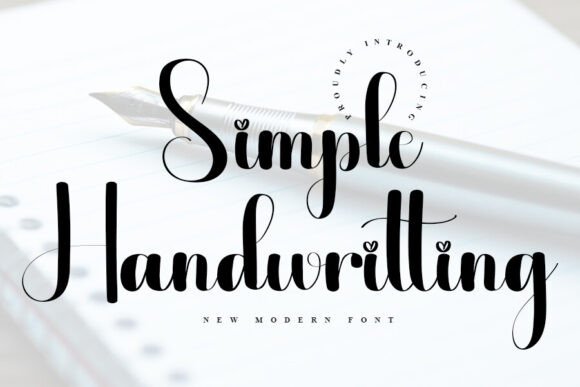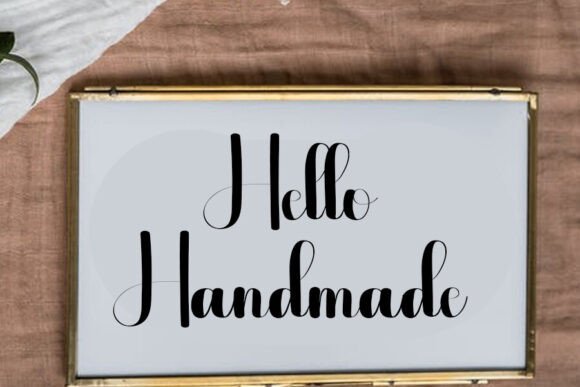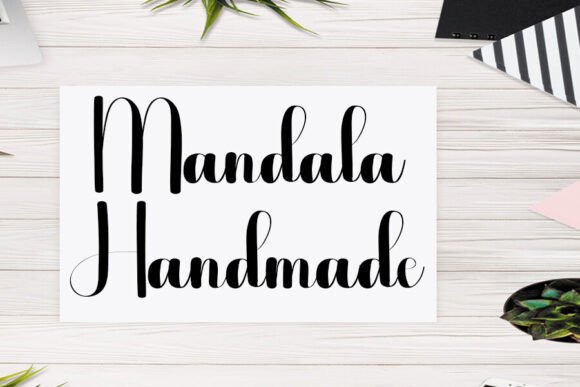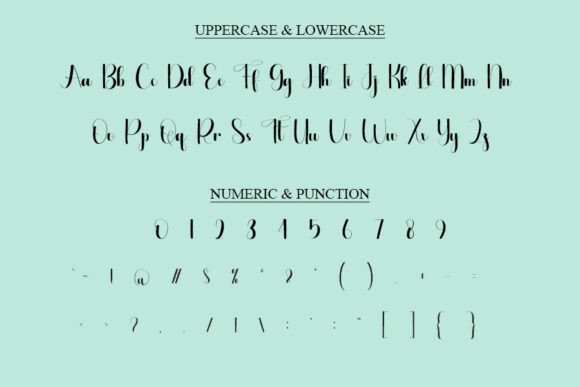
Simple Handwritting Font
About the Simple Handwritting Font
The Simple Handwritting Font offers a perfect balance of form and function for your design needs. Infuse your creative endeavors with the Simple Handwriting font. Its effortless charm and distinct style make it a perfect choice for a range of design needs such as captivating YouTube banners, attention-grabbing logo mockups, enchanting wedding invitations, professional ID cards, innovative flyers, and intricate crafts. Utilizing the Simple Handwriting font in your projects will not only elevate their aesthetic but also contribute to your business’s growth and development. However, its most exceptional feature remains its simplicity and uniqueness that sets it apart, brilliantly combining the allure of hand-drawn script with professional design.
Simple Handwritting Font Usage Examples
Simple Handwritting Font Example